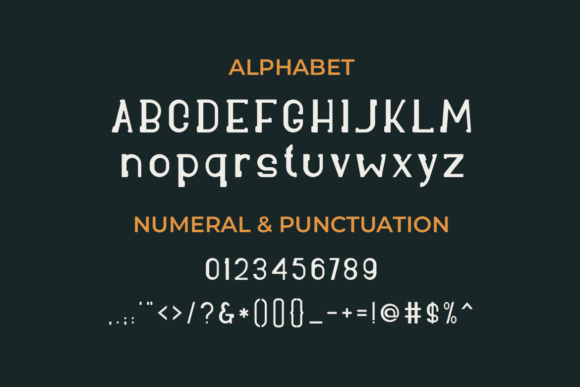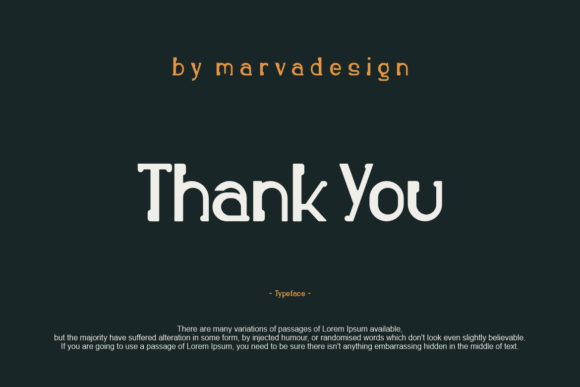
Berned Font: The Cool and Quirky Display Font for Your Crafty Ideas
Are you a designer or crafter looking for a unique and eye-catching font to add to your creative projects? Look no further than Berned Font! This cool and quirky display font is sure to elevate your crafty ideas and leave a lasting impression on your audience. In this article, we’ll dive into the world of Berned Font, exploring its features, benefits, and uses, as well as provide tips on how to make the most of this amazing font.
What is Berned Font?
Berned Font is a display font designed to add a touch of personality and whimsy to your creative projects. With its bold and quirky style, Berned Font is perfect for crafty ideas, DIY projects, and any design that requires a bit of flair. The font’s unique design features rounded edges and a playful feel, making it both fun and functional.
Features of Berned Font
So, what makes Berned Font so special? Here are just a few of its key features:
- Unique Design: Berned Font boasts a one-of-a-kind design that’s sure to stand out from the crowd. Its bold and quirky style makes it perfect for adding a touch of personality to your creative projects.
- Playful Feel: The font’s rounded edges and playful feel make it both fun and functional. Whether you’re designing a logo, crafting a sign, or creating a social media graphic, Berned Font is sure to bring a smile to your audience’s face.
- Versatile: Berned Font is incredibly versatile, making it suitable for a wide range of creative projects. From DIY crafts to professional designs, this font can be used in any situation where a bit of personality is needed.
Benefits of Using Berned Font
So, why should you choose Berned Font for your creative projects? Here are just a few of the benefits of using this amazing font:
- Adds Personality: Berned Font adds a touch of personality and whimsy to your creative projects, making them stand out from the crowd.
- Easy to Read: Despite its bold and quirky style, Berned Font is incredibly easy to read, making it perfect for use in a variety of situations.
- Boosts Creativity: Berned Font is sure to inspire your creativity, helping you to come up with new and innovative ideas for your crafty projects.
Uses for Berned Font
So, what can you use Berned Font for? The possibilities are endless! Here are just a few ideas to get you started:
- DIY Crafts: Berned Font is perfect for DIY crafts, such as signs, banners, and other decorative items.
- Social Media Graphics: Add a touch of personality to your social media graphics with Berned Font. It’s perfect for creating eye-catching posts and stories.
- Logos and Branding: Berned Font can be used to create unique and memorable logos and branding materials.
Tips for Using Berned Font
Here are a few tips for using Berned Font in your creative projects:
- Use it Sparingly: While Berned Font is a bold and eye-catching font, it can be overwhelming if used too much. Use it sparingly to add a touch of personality to your designs.
- Pair it with Other Fonts: Berned Font pairs well with a variety of other fonts. Experiment with different combinations to find the perfect look for your project.
- Experiment with Colors: Berned Font looks great in a variety of colors. Experiment with different colors and combinations to find the perfect look for your project.